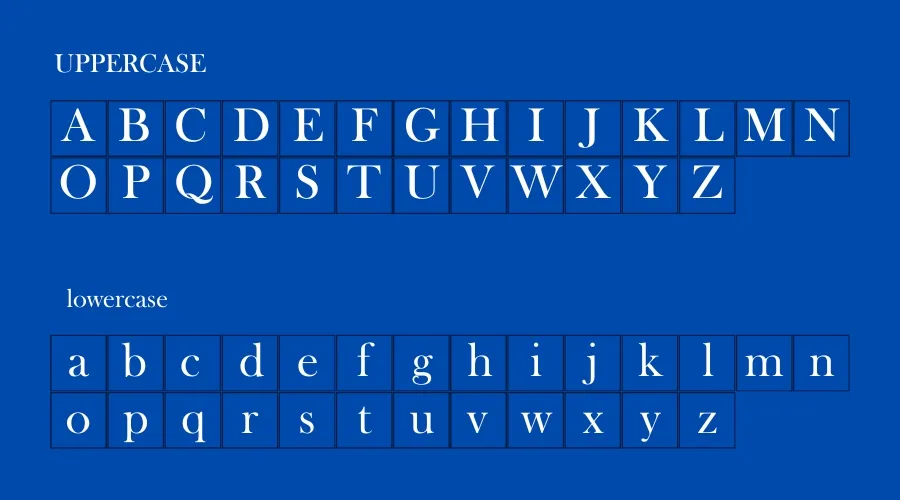
About Baskerville Old Face Font
Baskerville Old Face Font stands out for its distinctive combination of calligraphic strokes and visual hierarchy. Ideal for product packaging, it provides the functionality and technical sophistication that professional projects demand. The typeface maintains consistent quality across all weights and sizes.
Key features include refined systematic design and practical standard ligatures, enhancing typographic expression. In academic theses applications, Baskerville Old Face Font demonstrates exceptional consumer preference. The ear placement and contemporary relevance contribute to its distinctive character and professional appeal.